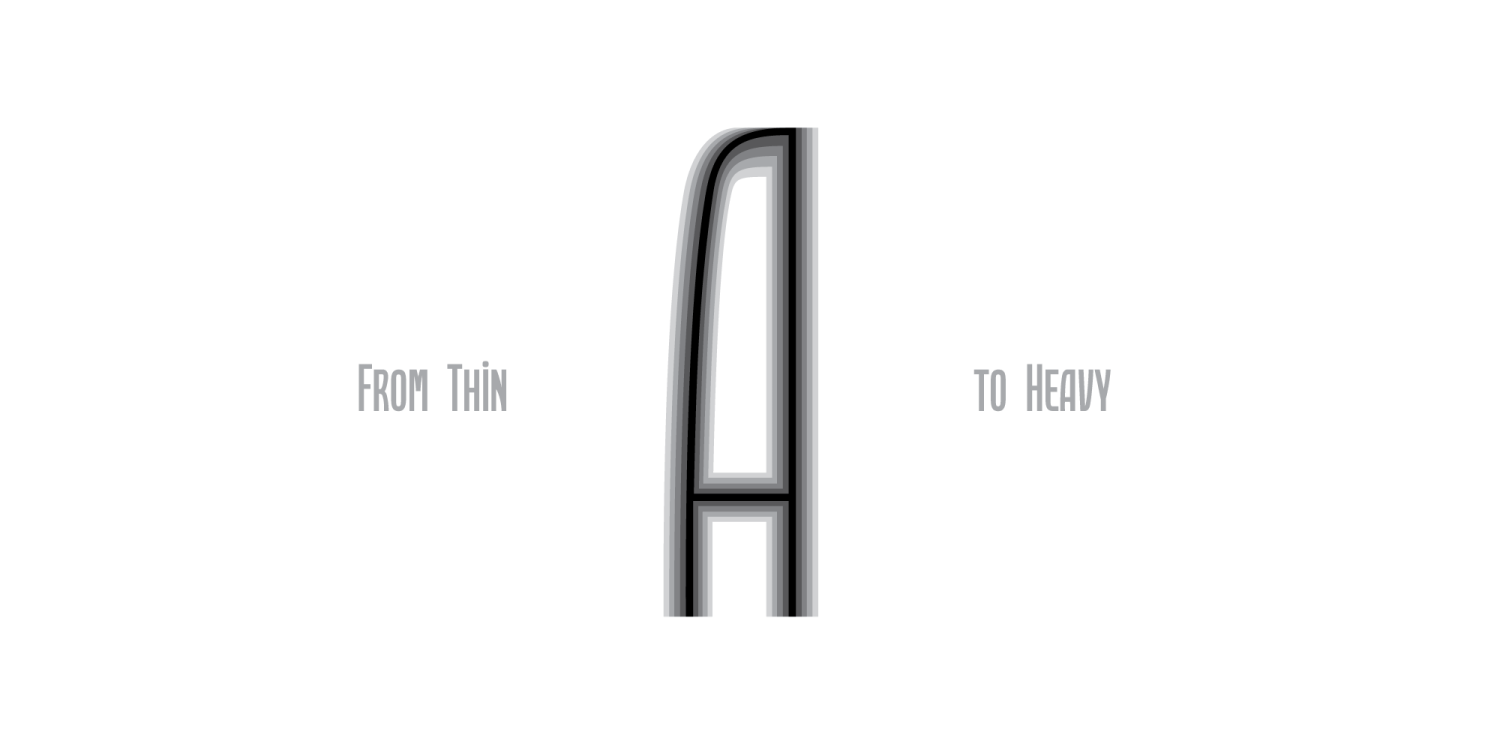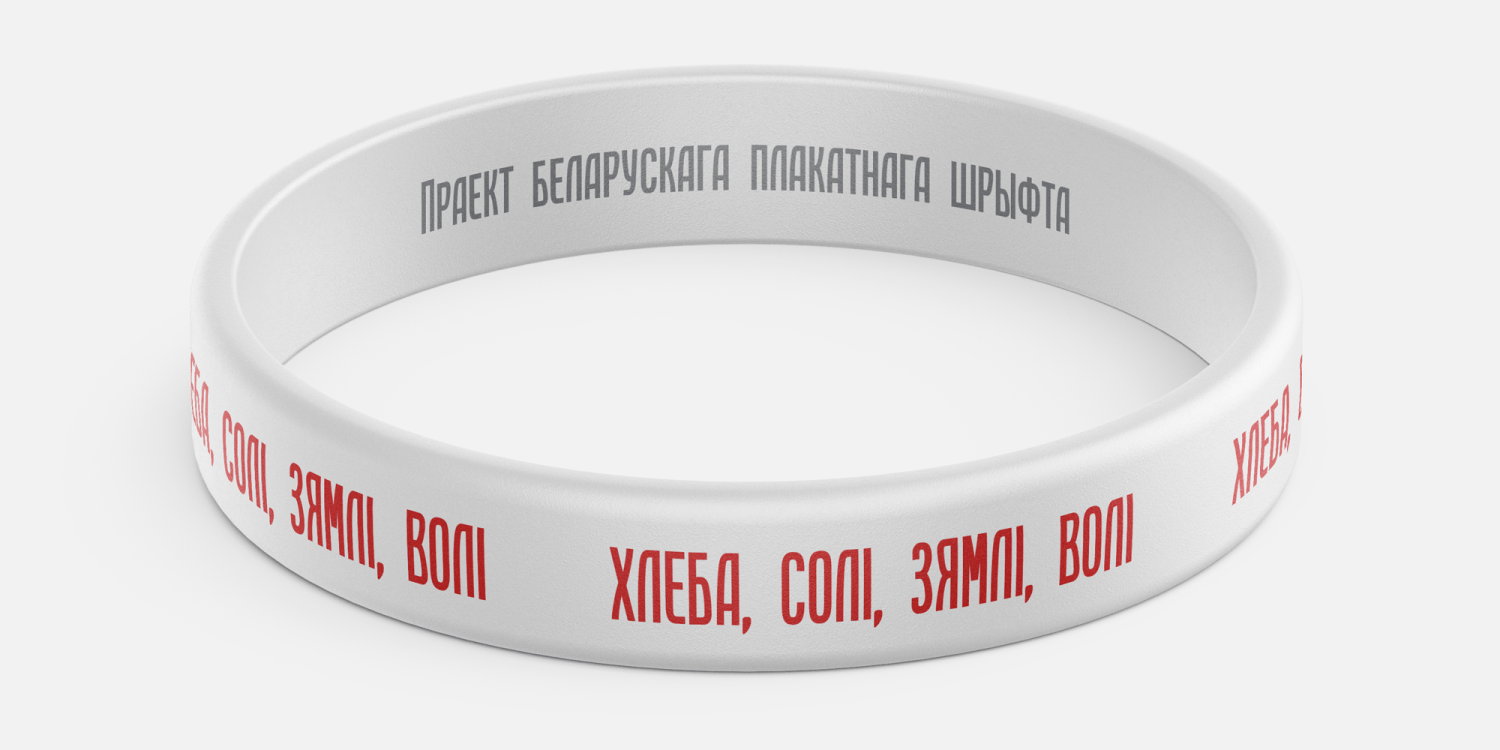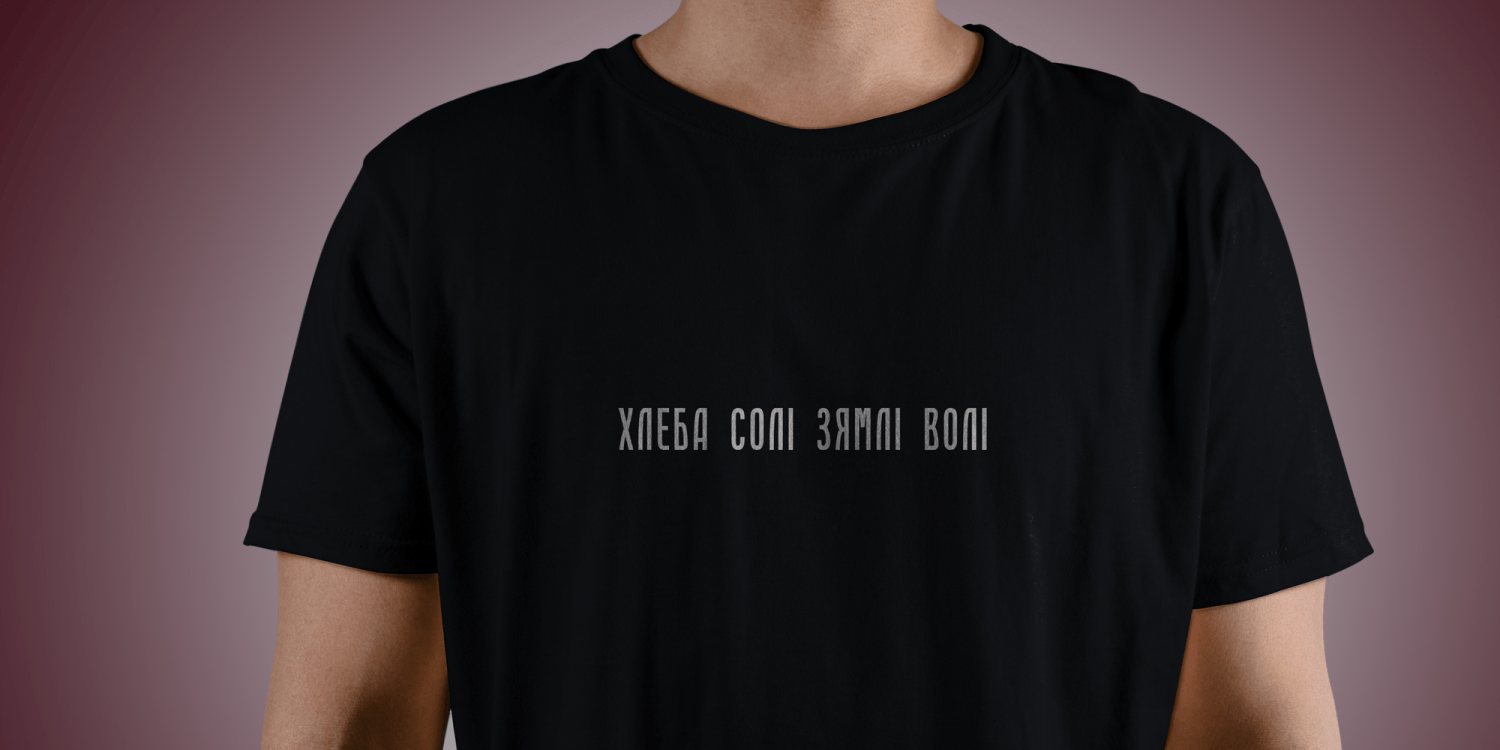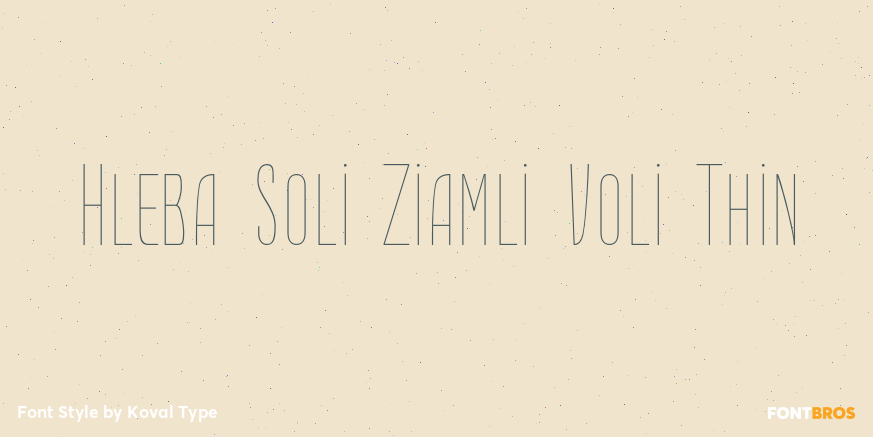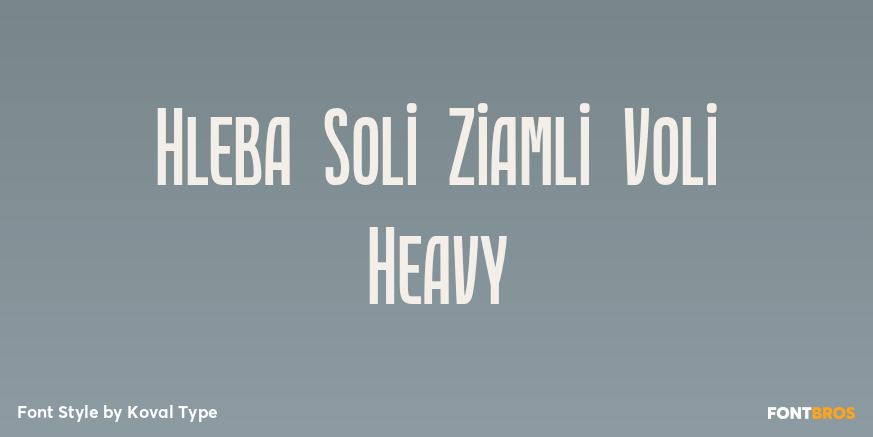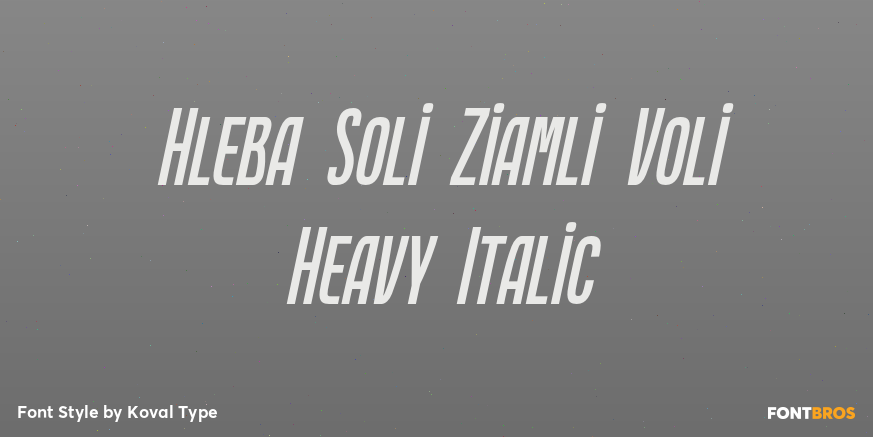
Hleba Soli Ziamli Voli
Font Family by Koval Type
Hleba Soli Ziamli Voli is a striking display typeface that bridges tradition and modernity. Inspired by classic poster lettering, it blends bold, sculptural forms with the warmth and rhythm of Humanist Renaissance design. The typeface takes its name from the celebrated Belarusian poem by Yanka Kupala, while its letterforms echo the historic print works of Francisk Skoryna, one of the pioneers of Eastern European typography.
Perfect for titles, posters, and editorial projects, Helena Soli Ziamli Voli Hleba carries both cultural depth and contemporary flair—making it an expressive choice for designers seeking originality rooted in history.